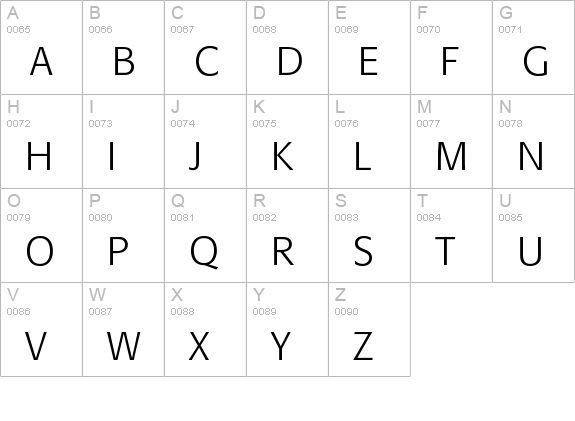
Formata BQ Light is a refined, elegant variant in the Formata typeface family \xE2\x80\x94 well suited to elegant body text, refined sub-headings, and luxury branding.
Formata BQ Light font is a sophisticated and elegant typeface designed with a modern touch. Its sleek and clean lines make it perfect for a wide range of design projects, from branding to editorial design. The light weight of this font adds a delicate and airy feel to any text it is applied to, making it ideal for creating a sense of sophistication and refinement. What makes Formata BQ Light font even more appealing is that it is available for free download at FontsMarket.com. This means you can easily access and use this beautiful font in your projects without any cost. Whether you are working on a personal project or a professional design, Formata BQ Light font is a versatile and stylish choice that will elevate the look and feel of your work.